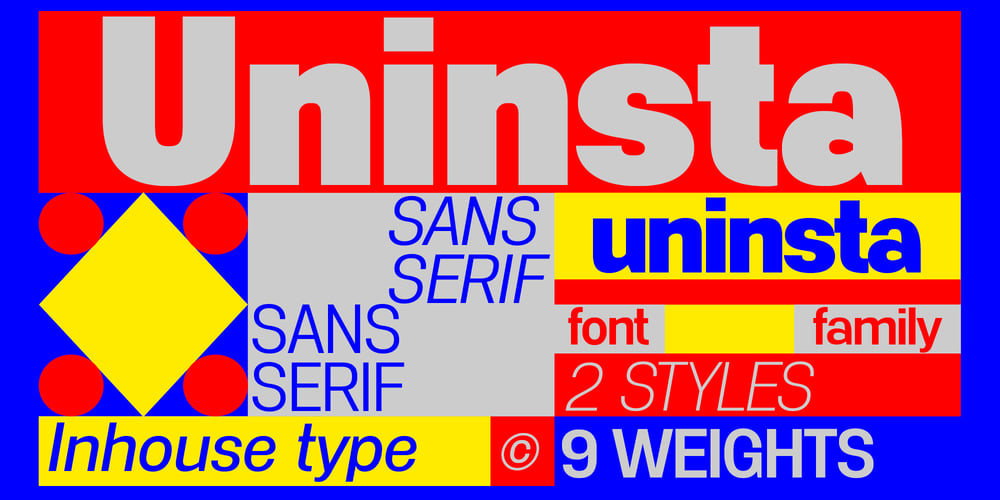
Uninsta
Uninsta font
Uninsta Font Family was designed by Mariya Lish and published by Inhouse Type. Uninsta contains 18 styles and family package options. Uninsta is a neutral sans serif font family intended for use across a variety of modern applications in both digital and print media. Geometric letter forms are combined with subtle humanist touches to create a legible, low contrast typeface with great personality. Details include 9 harmonised weights with true italics, over 490 characters, alternative lowercase ‘a’ and uppercase ‘Q’ with associated accents, manually edited kerning and Opentype features.